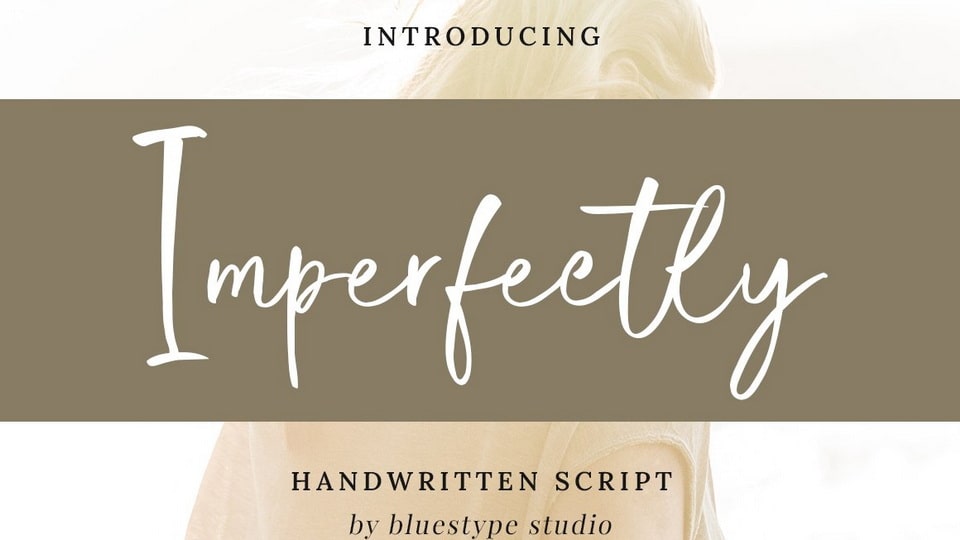
Download Imperfectly font, a stunning handwriting typeface with a cool twist, light and aesthetic script, it’s the ideal typeface to add to a design project